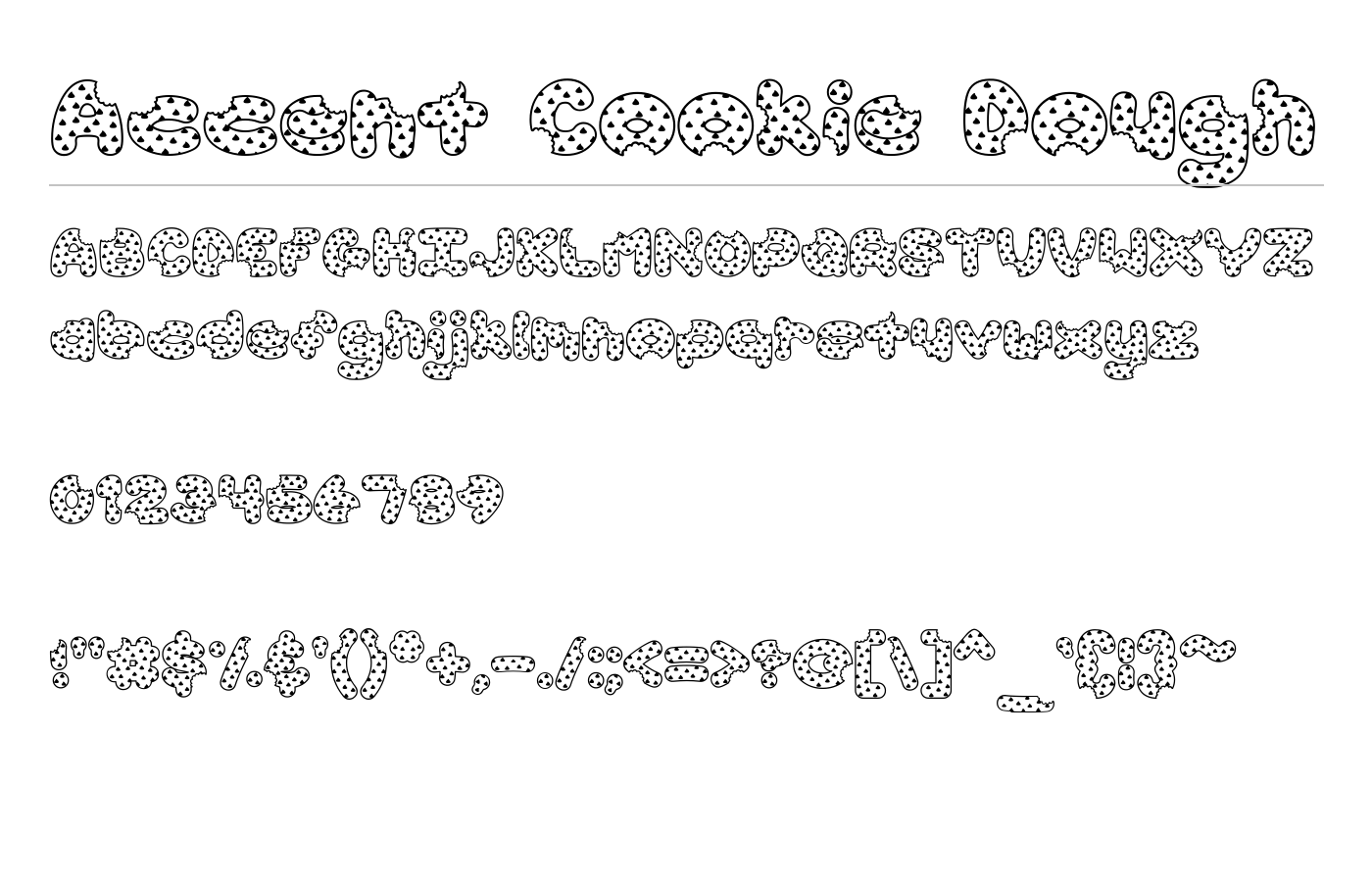
Accent Cookie Dough is a playful, chunky display font that mimics the look of bite-marked cookie dough sprinkled with chocolate chips. Its rounded, whimsical letterforms create a fun and inviting feel, perfect for casual, lighthearted designs aimed at children or food-related brands. This font works best for logos, packaging, and headlines where a quirky, adorable personality will shine through.
Accent Cookie Dough Font